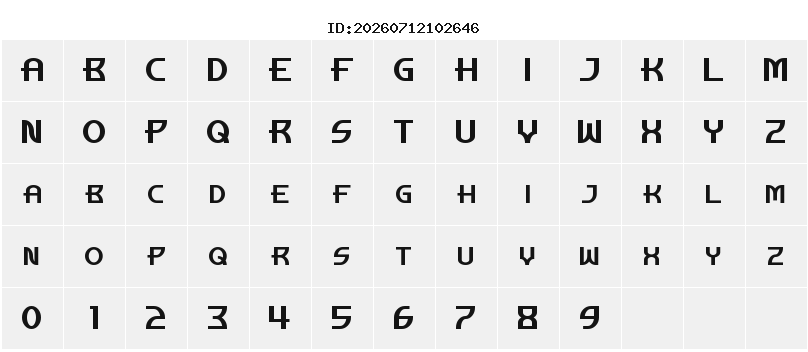
Manhattan Tower Preview
• Font Name: Manhattan Tower
• Full Font Name: Manhattan Tower
• Version: Version 1.00 March 22, 2016, initial release
• Designer: Neale Davidson
• Manufacturer: Pixel Sagas
About Manhattan Tower.otf
Manhattan Tower.otf is a modern, elegant sans-serif font designed for ultimate readability and visual harmony. Perfect for branding, headlines, web design, and print materials.